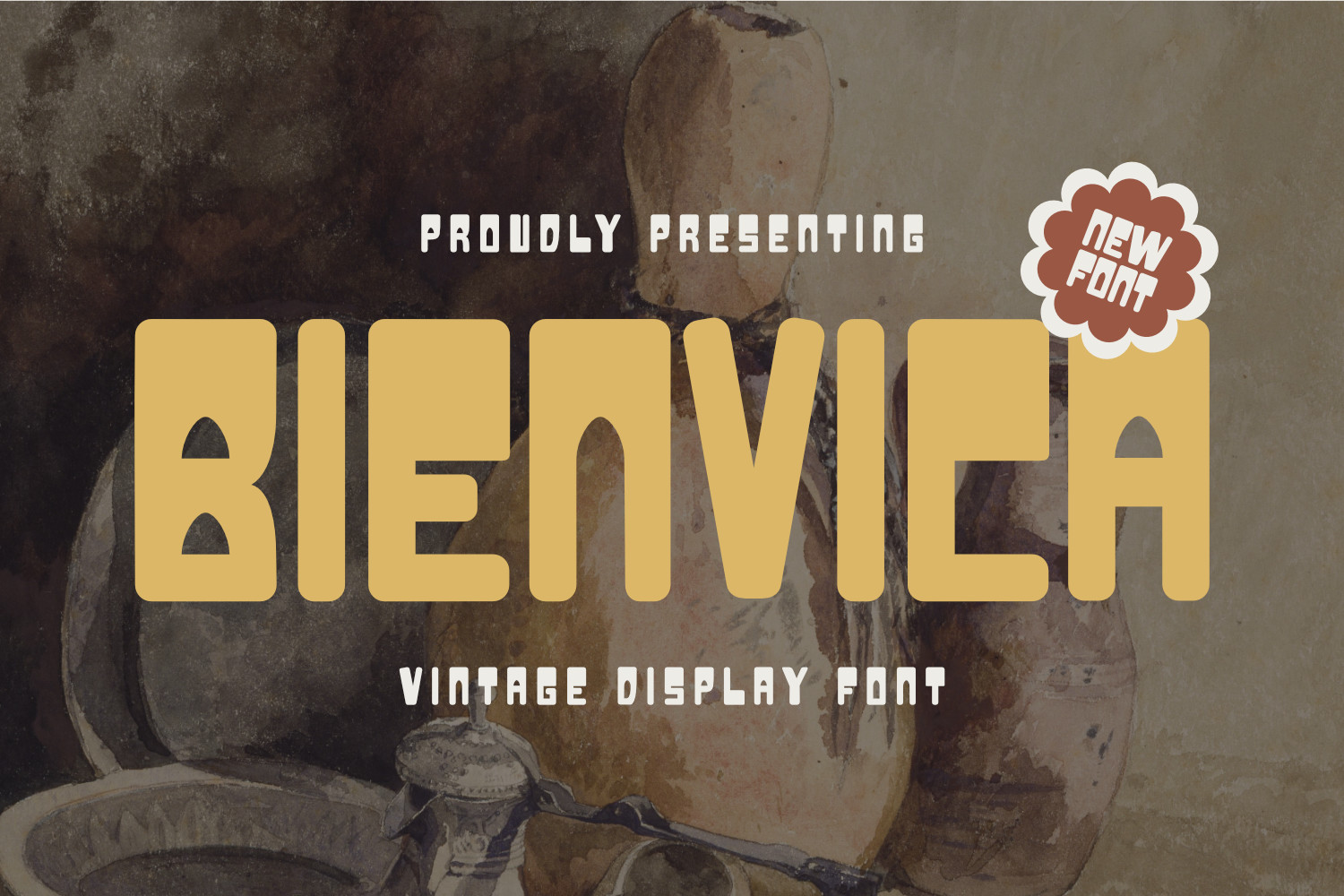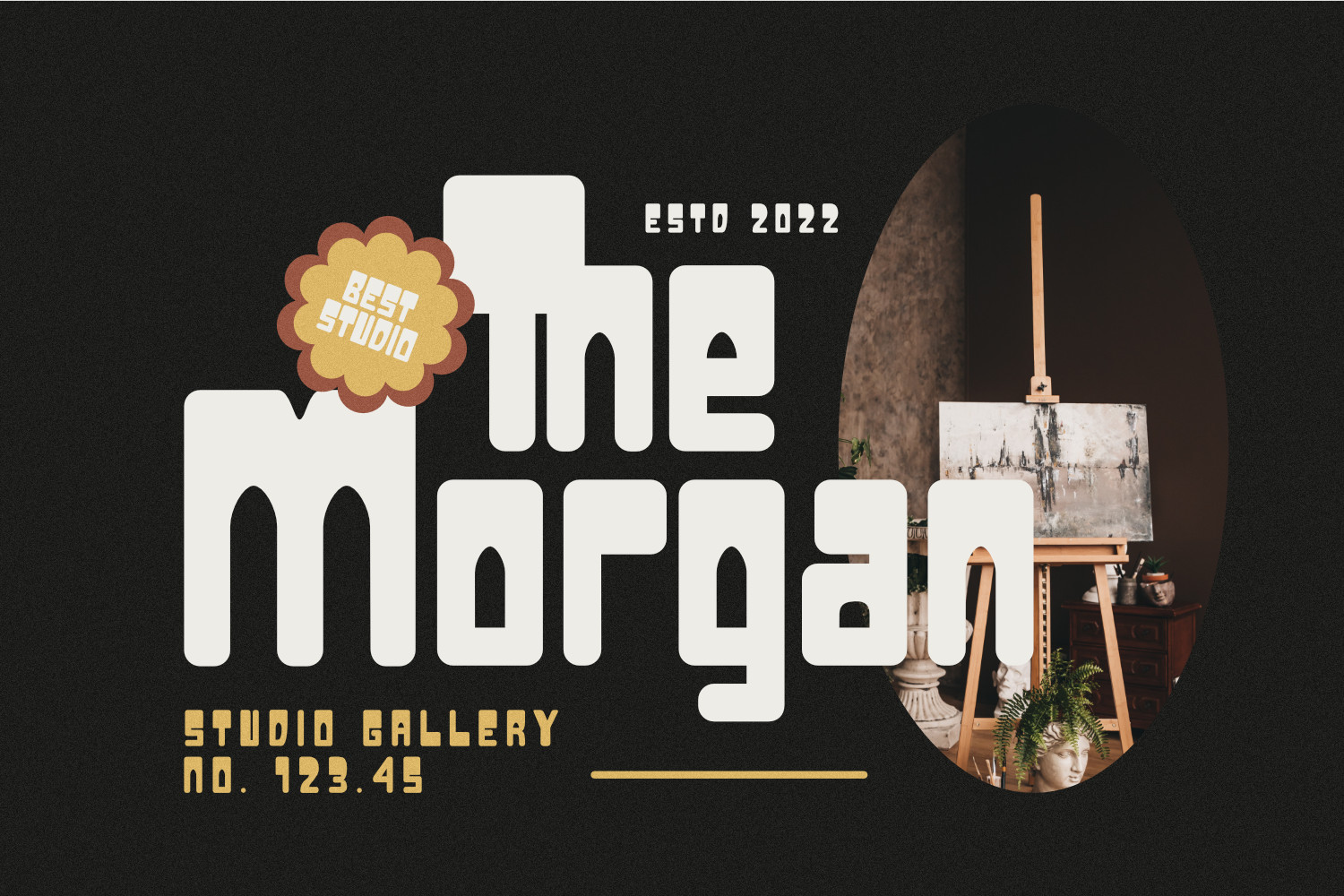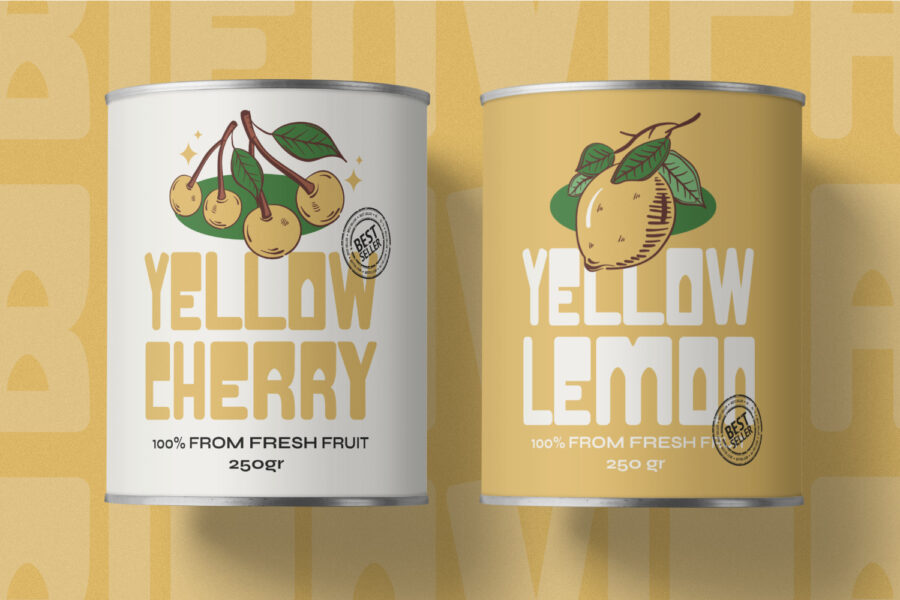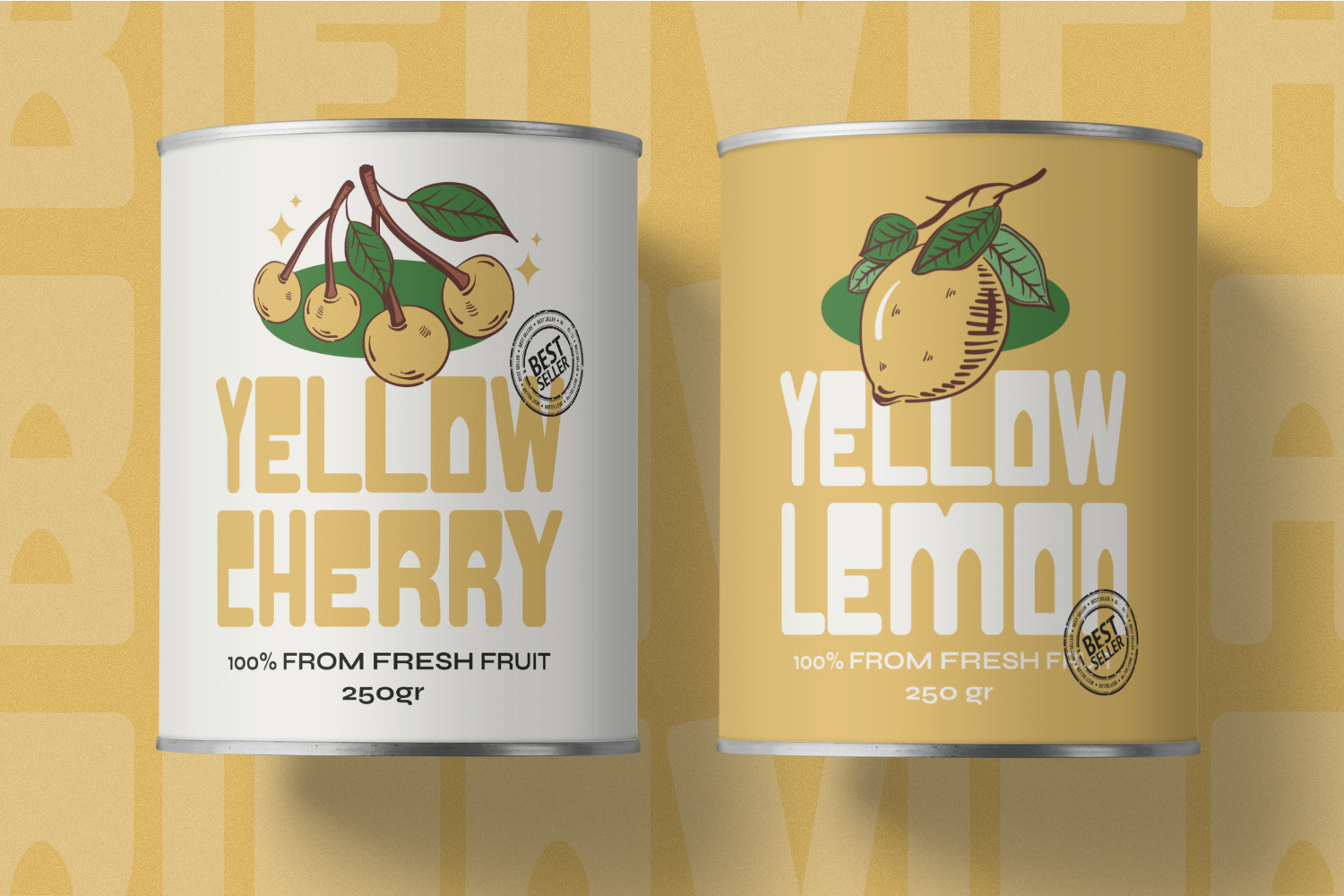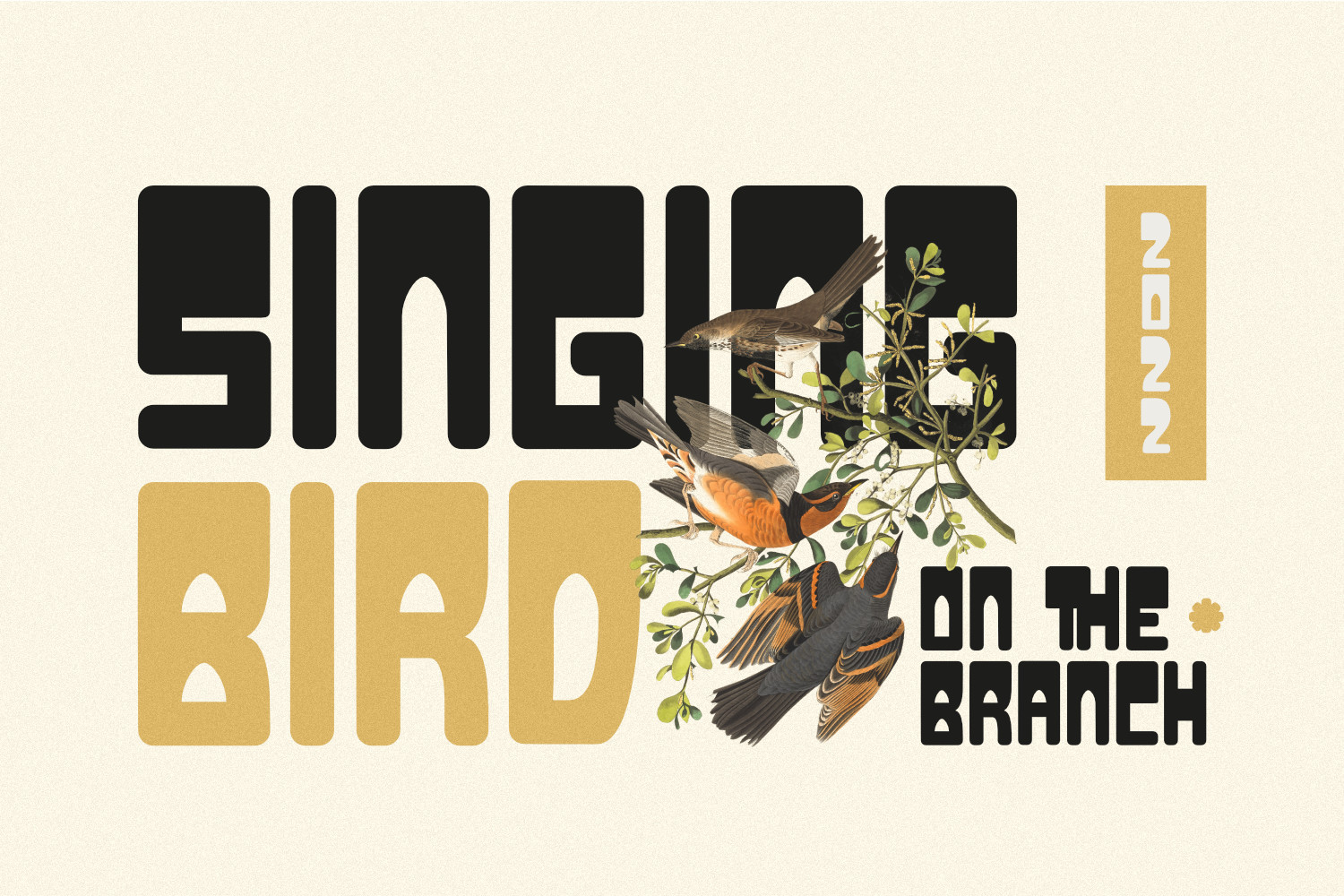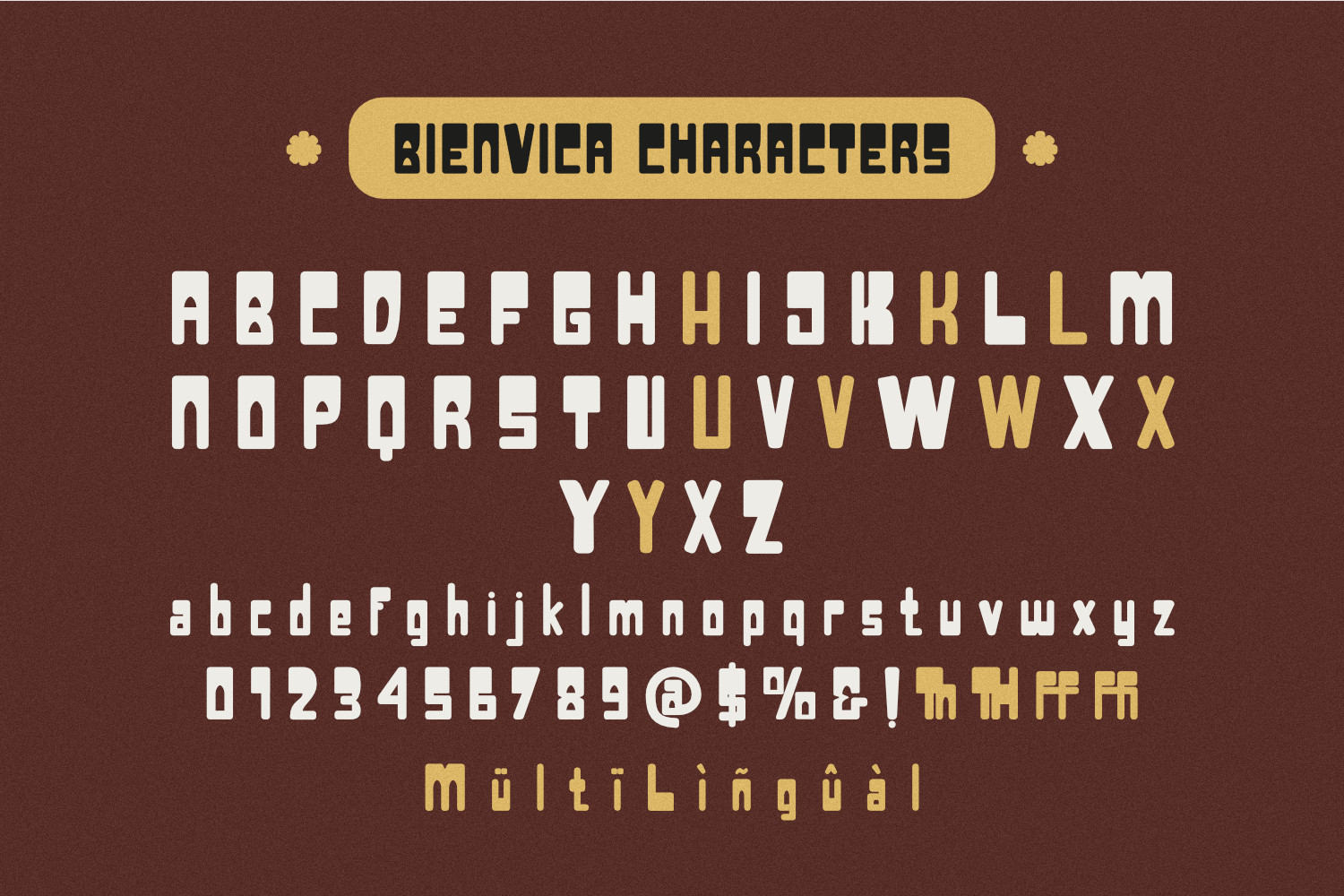
Bienvica is a bold and charming vintage display font with a distinctly rounded, modular shape that captures the essence of retro aesthetics with a modern twist. Its thick strokes and geometric flair make it perfect for standout headlines, branding, and playful packaging. The letterforms are crafted with soft curves and uniform widths, creating a harmonious rhythm and eye-catching presence that feels nostalgic yet fresh.
Designed for high impact, Bienvica supports multilingual characters and offers a variety of ligatures to enhance its versatility. This font is a fantastic choice for creative projects like food labels, poster design, retro ads, album covers, and artistic branding that demands a statement. Whether you’re evoking the past or reimagining the future, Bienvica delivers bold personality with ease.